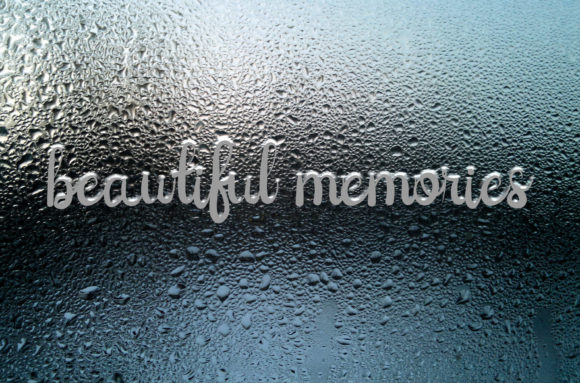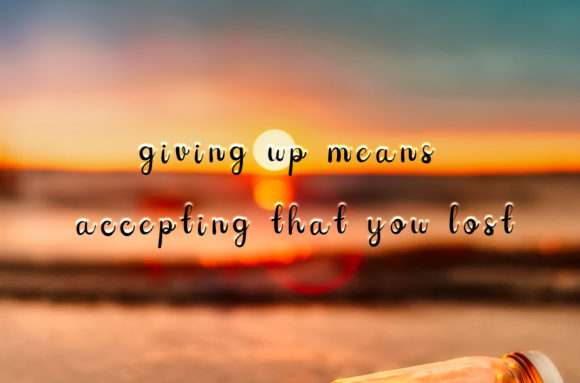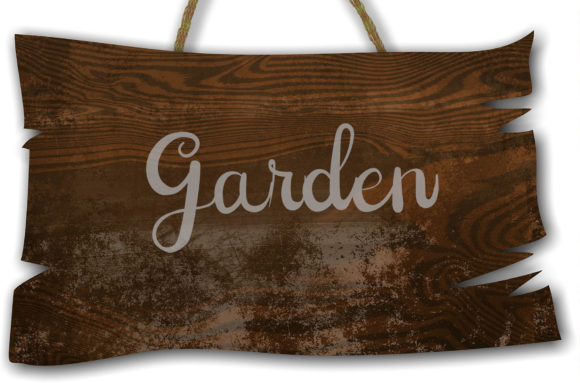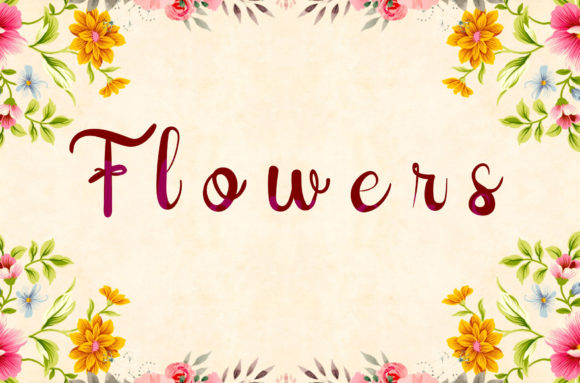
Introduction to Holyday Font
Do you remember that moment when you stumbled upon the perfect font for your creative project? The one that instantly elevates your design and makes it stand out from the crowd? For many designers, that moment is what makes all the hard work worth it. And today, we’re excited to share with you a font that’s sure to become a true favorite: the Holyday Font.
This chic handwritten font is a masterclass in elegant design, effortlessly blending classic calligraphic influences with a fresh, contemporary feel. Whether you’re working on a high-end branding project or a free download for a personal blog, the Holyday Font is an invaluable design resource that’s sure to impress. With its transparent background and versatile style, it’s the perfect addition to any creative project.
Key Features of Holyday Font
- High-quality, unique design for creative projects and graphic designs
- Designed with a modern and elegant aesthetic, ideal for various design applications
- Includes a range of characters, including uppercase and lowercase letters, numbers, and punctuation marks
Honest Review: Holyday Font
I recently had the chance to dive into the Holyday Font, and I must say it’s a promising addition to any designer’s toolkit. With its high-quality design and transparent background, this font is perfect for any creative project.
- ✨ High-quality design makes it ideal for branding and print materials
However, there are some limitations to consider. ⚠️ The font family is relatively small, with only a few weights and styles available. This might limit its versatility in certain projects. Additionally, the font’s design, while elegant, may not be the best fit for every type of creative project.
Overall, I’d say the Holyday Font is a solid choice for designers looking for a high-quality, free design resource. While it may not be the most versatile font out there, its strengths make it a great addition to any design arsenal.
Introduction to Holyday Font
Holyday Font is a high-quality design resource ideal for various creative projects. With its unique and stylish design, it’s perfect for adding a touch of elegance to your work. The font is available for free download, making it an excellent choice for designers on a budget.
Tips for Getting the Most Out of Holyday Font
To get the most out of Holyday Font, use it in combination with other design elements, such as graphics and images. You can also experiment with different font sizes and colors to create a unique look. Additionally, use the font on a transparent background to give your design a more modern look.
Common Use Cases for Holyday Font
Holyday Font is ideal for various creative projects, including: 1) Wedding invitations, 2) Business cards, 3) Social media graphics, and 4) Brochures. The font’s high-quality design and stylish look make it perfect for adding a touch of elegance to your
Alternatives to Holyday Font
The Lobster Font is a high-quality, cursive font perfect for creative projects that require a touch of elegance and sophistication. It is ideal for use in logo designs, invitations, and other design elements where a handwritten feel is desired. Unlike Holyday Font, Lobster Font offers a more refined and polished look, making it suitable for a wide range of design applications.
The Great Vibes Font is a high-quality, script font designed for use in creative projects that require a sense of freedom and playfulness. It is ideal for use in social media graphics, posters, and other design elements where a fun and lively feel is desired. Great Vibes Font offers a more casual and relaxed look compared to Holyday Font, making it perfect for design projects that require a carefree and spontaneous vibe.